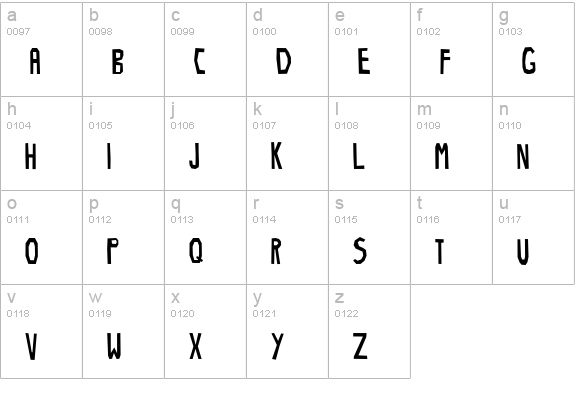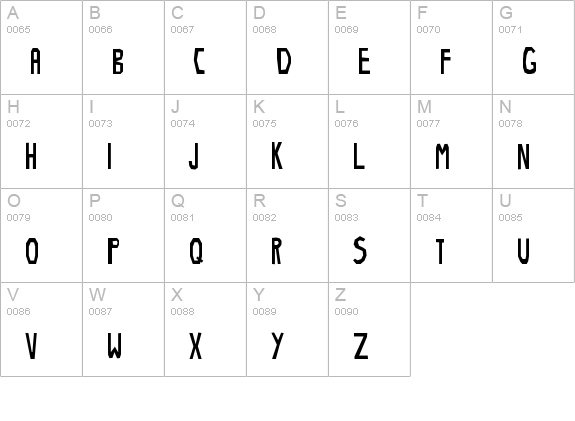
Stinko Font Details
Introducing Stinko font, a whimsical and playful typeface that is sure to add a touch of fun to your designs. With its quirky and unique letterforms, Stinko font is perfect for adding a pop of personality to any project. Whether you're working on a poster, logo, or social media graphic, this font is sure to make a statement. Best of all, Stinko font is available for free download at FontsMarket.com. So go ahead and give your designs a fresh and funky look with this eye-catching typeface. Let your creativity shine with Stinko font!